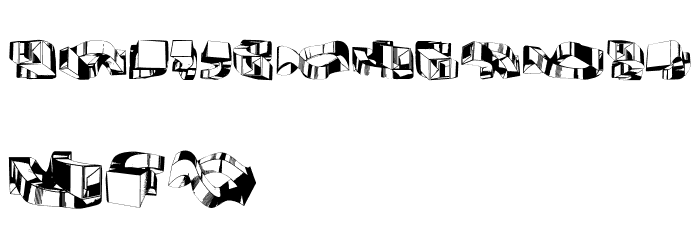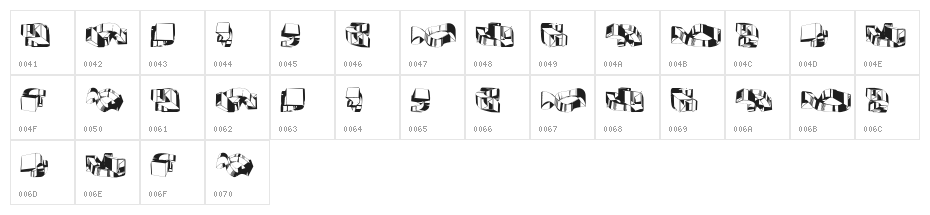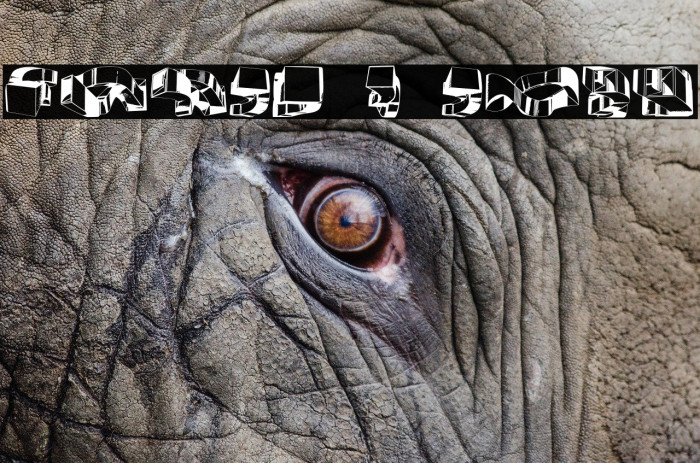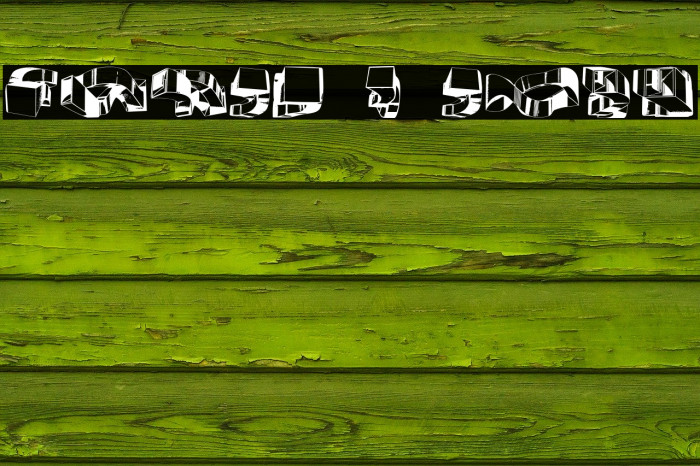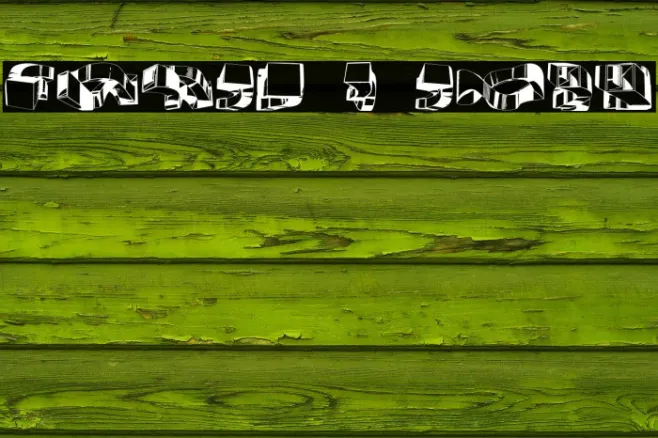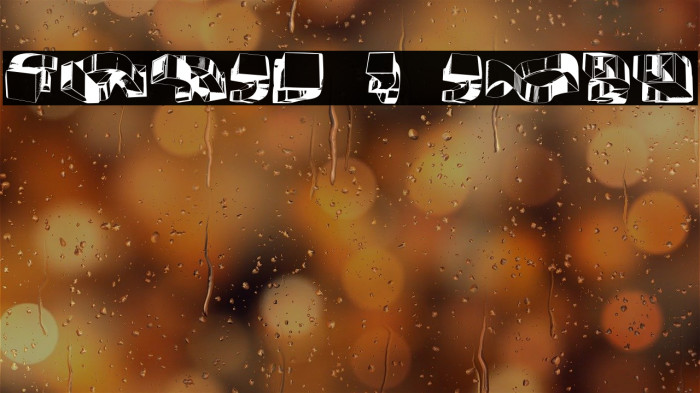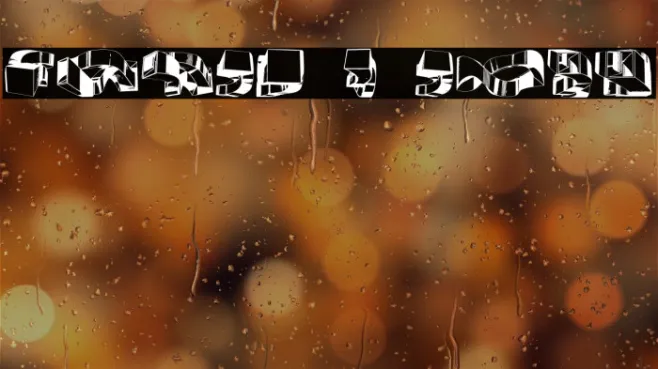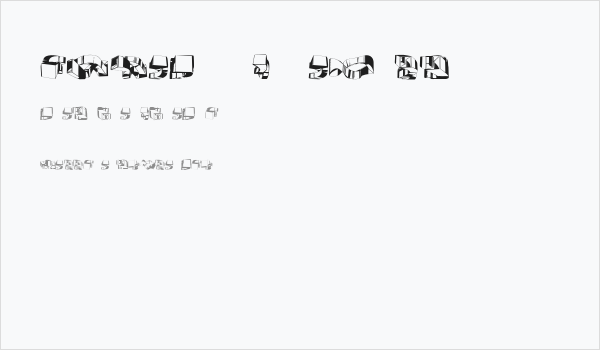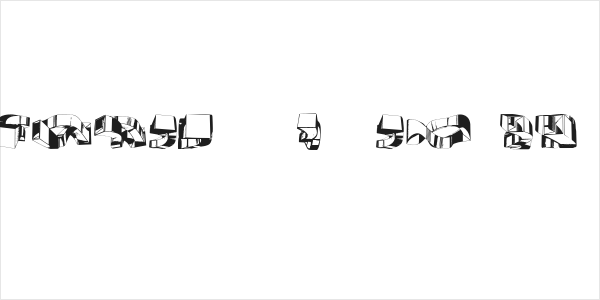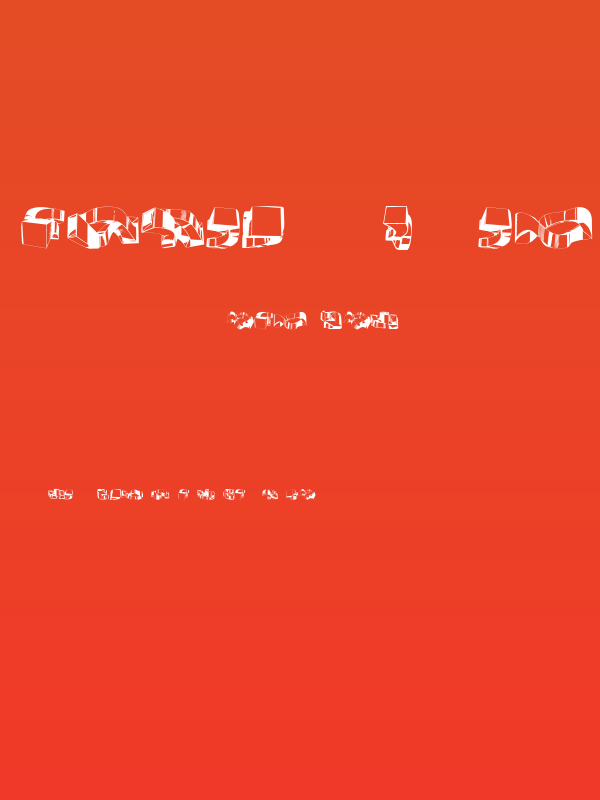
Object 3D Regular Font
Object 3D Regular Description
This font features a bold, three-dimensional design that gives each character a distinct, block-like appearance. The letters are constructed with a combination of solid and outlined segments, creating a sense of depth and movement. The style is highly geometric, with angular lines and sharp edges that contribute to its modern and futuristic look. The font's unique structure makes it stand out, providing a visually striking effect that is both artistic and functional. Its complex design might require careful consideration in terms of readability, especially in smaller sizes, but it excels in creating a strong visual impact.
| Proposed Projects | Ideal for projects requiring a strong visual impact, such as posters, logos, video game graphics, and sci-fi themed designs. |